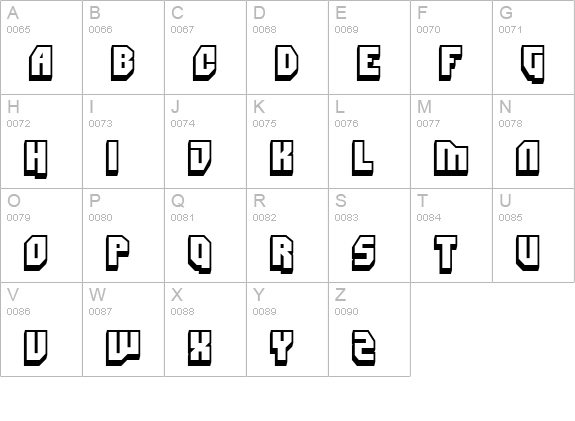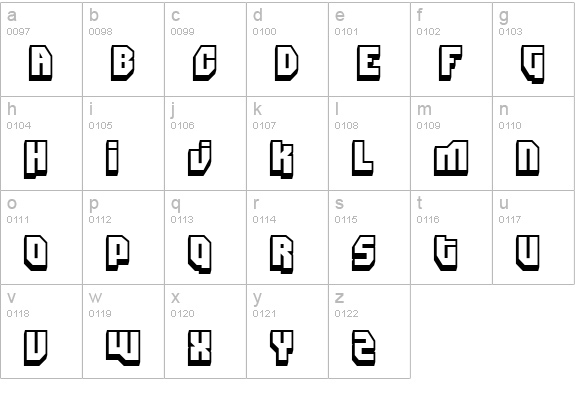
Dimitri Swank Font Details
Introducing Dimitri Swank font, a versatile and stylish typeface that exudes elegance and sophistication. With its sleek lines and modern aesthetic, Dimitri Swank is perfect for adding a touch of class to your design projects. This font features a unique blend of classic and contemporary elements, making it ideal for a wide range of applications. What sets Dimitri Swank apart is not only its striking appearance but also its versatility. Whether you're designing a logo, creating branding materials, or crafting invitations, this font will elevate your work to the next level. Its clean and crisp letterforms ensure readability while still making a statement. The best part? Dimitri Swank is available for free download at FontsMarket.com. That's right, you can enhance your designs with this sophisticated font without breaking the bank. Don't miss out on the opportunity to add Dimitri Swank to your font collection and take your projects to new heights. Download now and let your creativity shine with Dimitri Swank font.